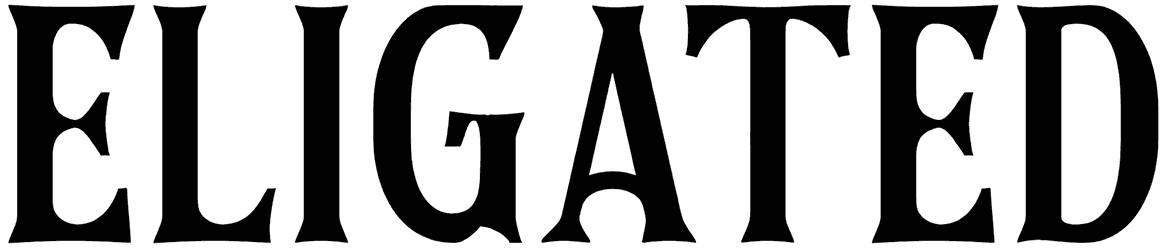
Eligated Font
If you are searching for a retro font that has a strong old-fashioned feel, you will require Eligated! This barbershop font has a historical design, it’s steady and reliable. The bold, serif-style characters give a trustworthy and professional look to your upcoming project.
You will find that Eligated doesn’t include a set of lower-case alphabets, nor a set of numbers. A few places you might plan to give this font a try are books, banners, flyers, boxes, and more.